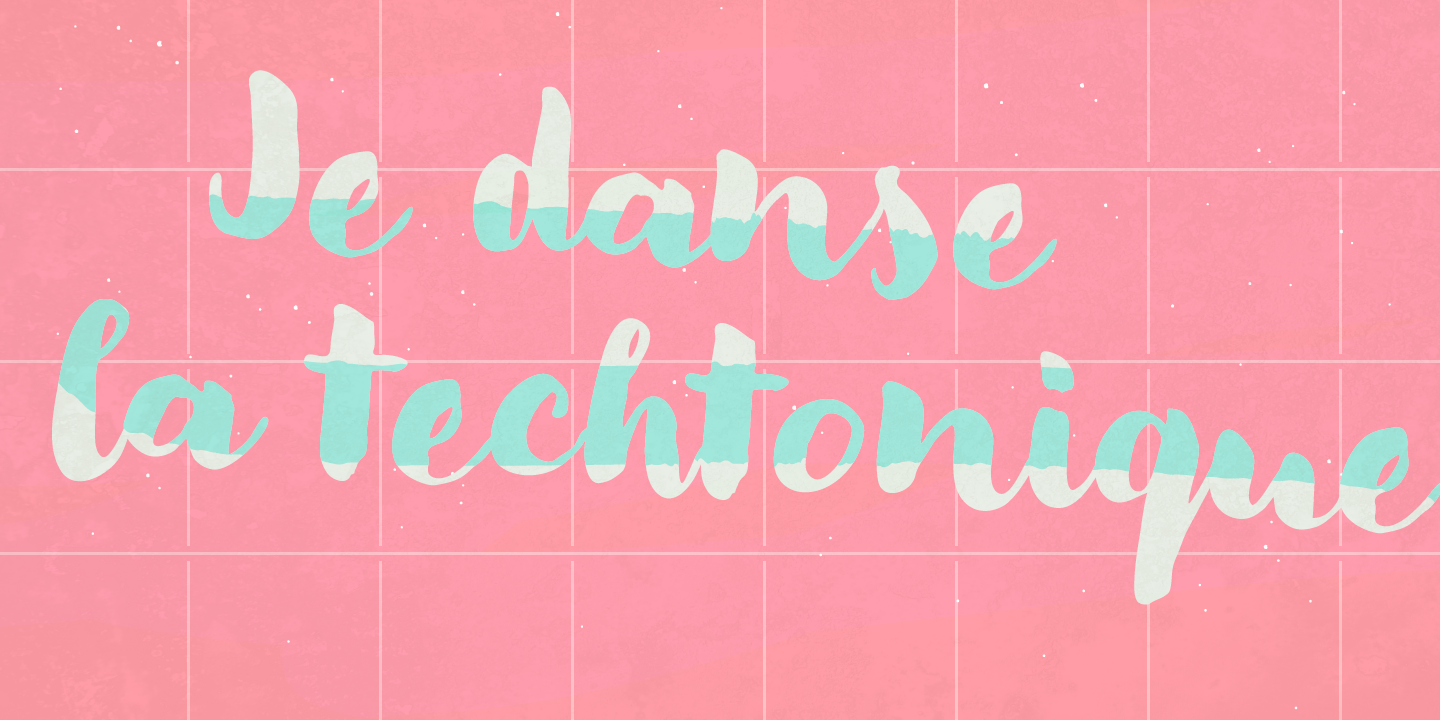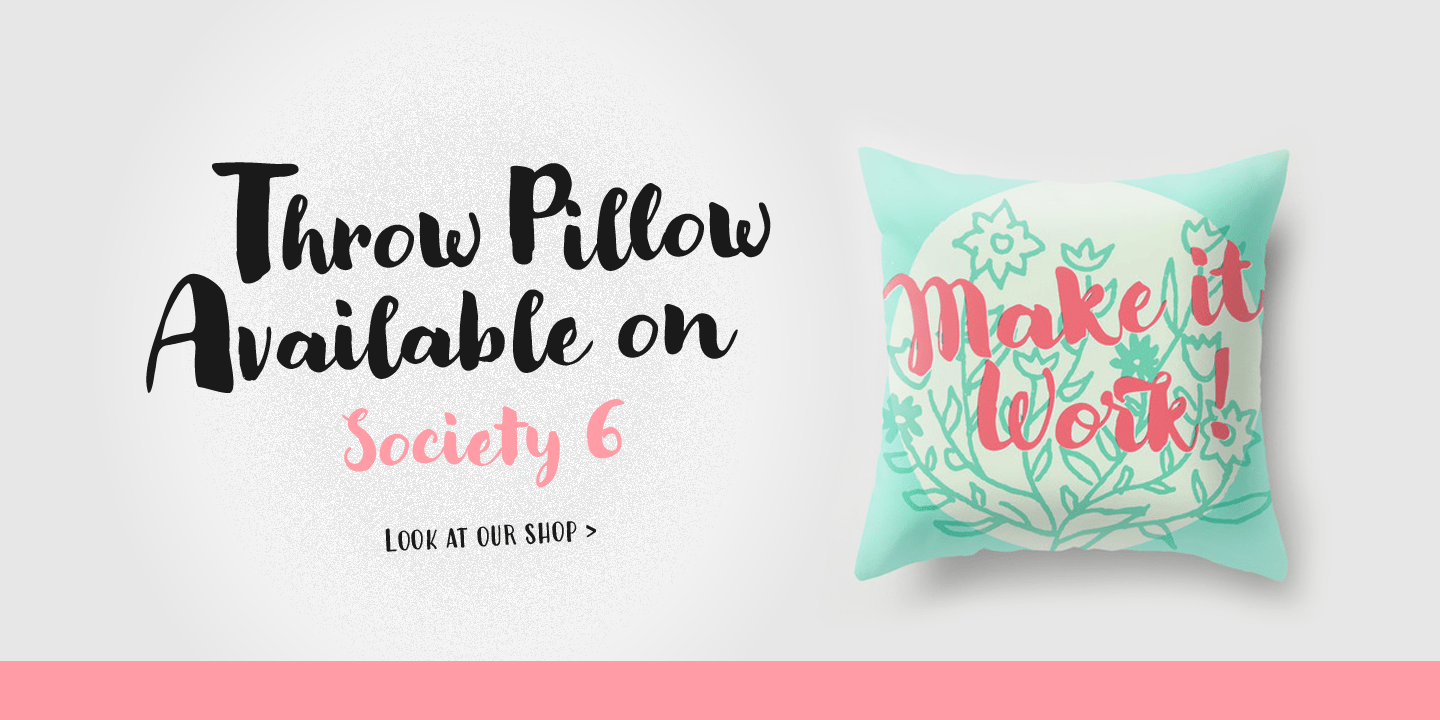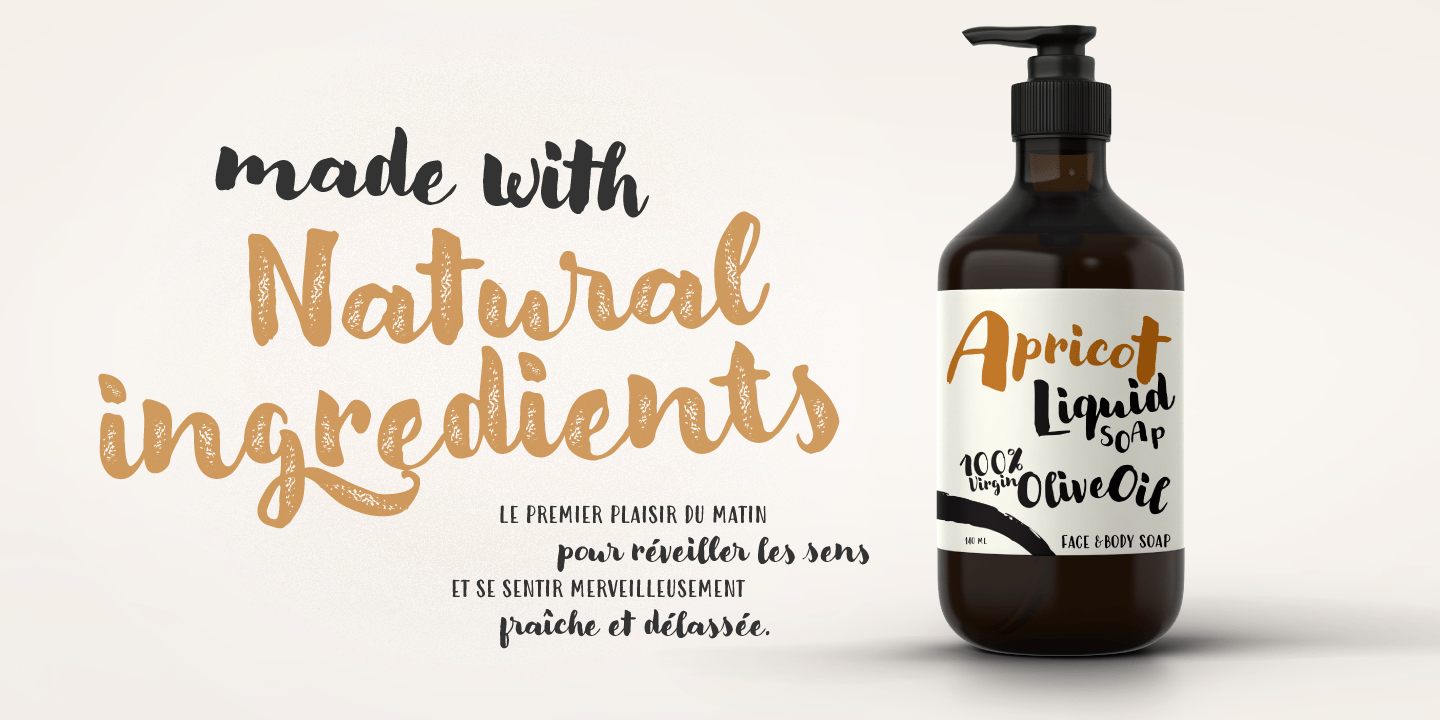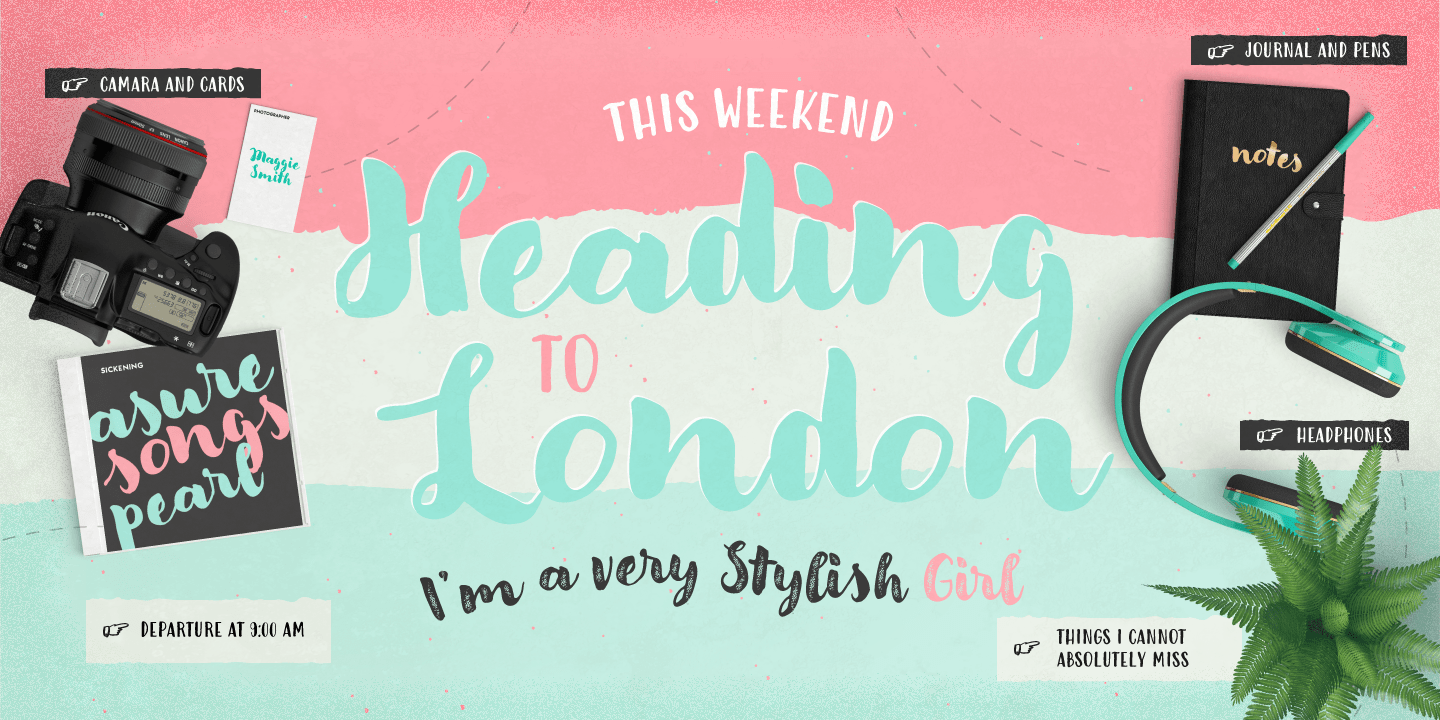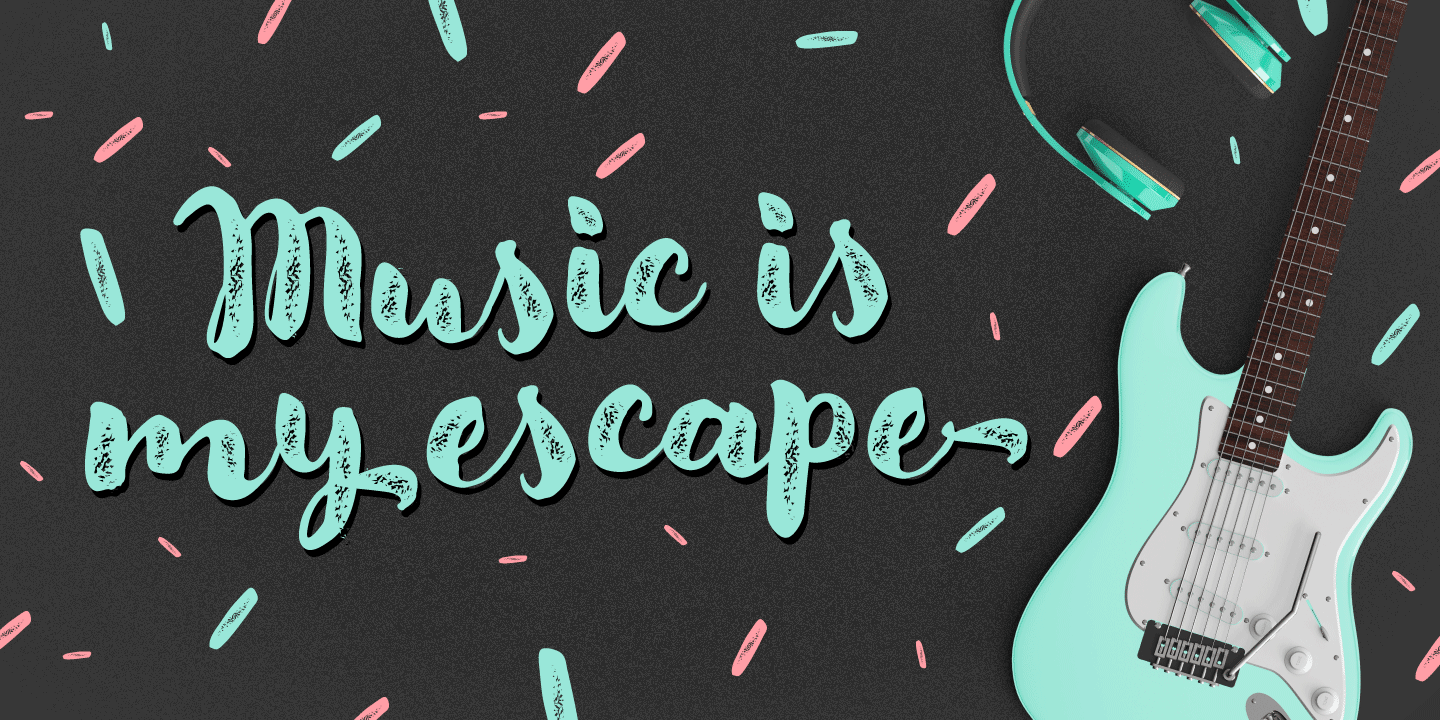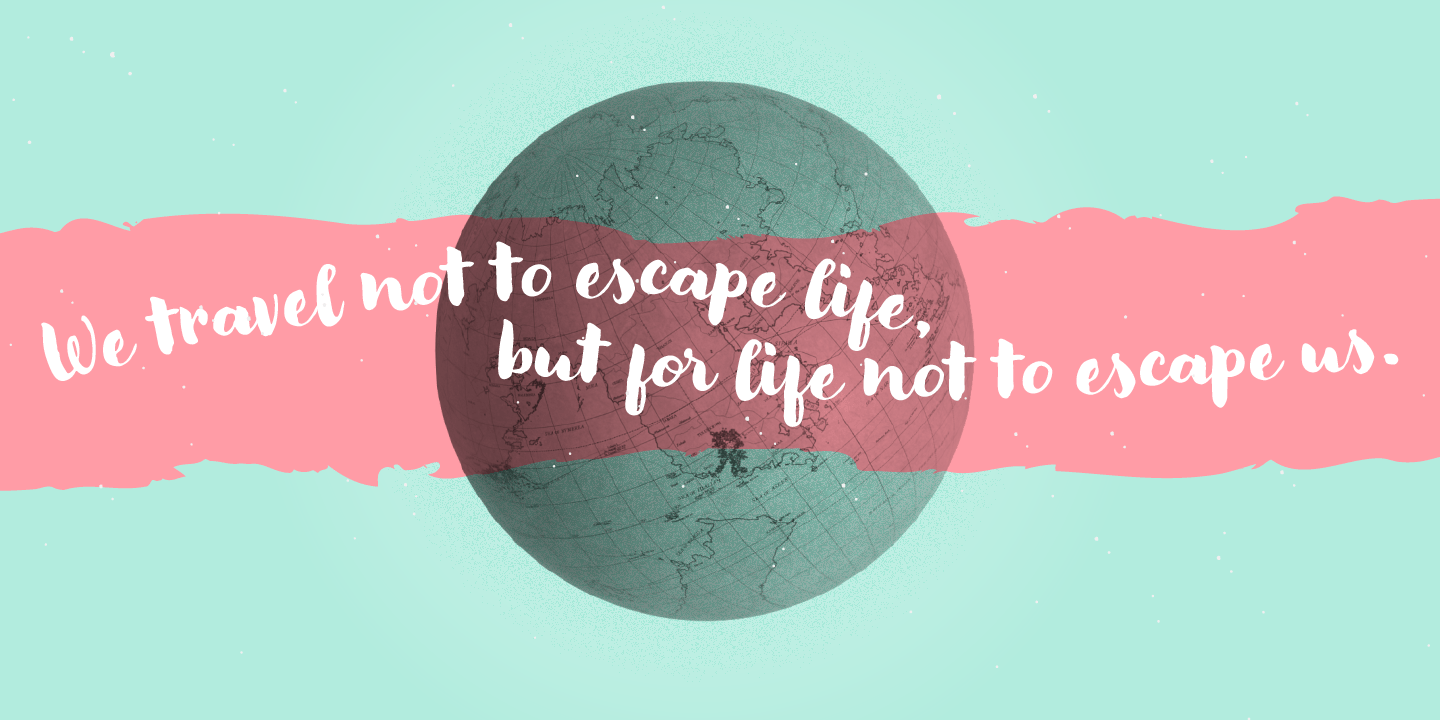
About Modern Love
Breaking from our catalog of typefaces to create a new handwritten font family, Modern Love was born out of our desire to see what would happen if we took a step back from the norm. We weren\’t looking for the perfection of the many calligraphy techniques,…